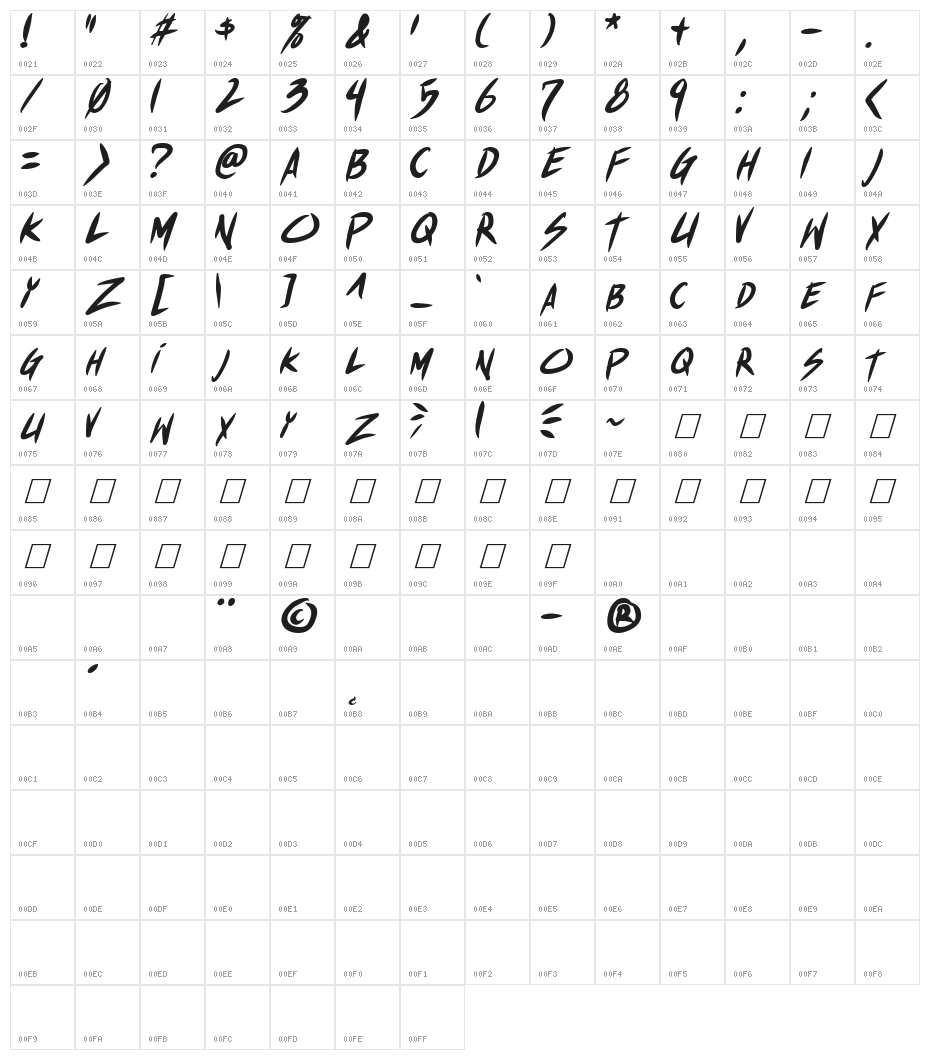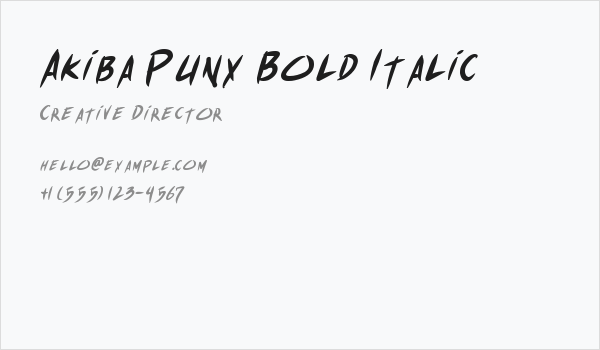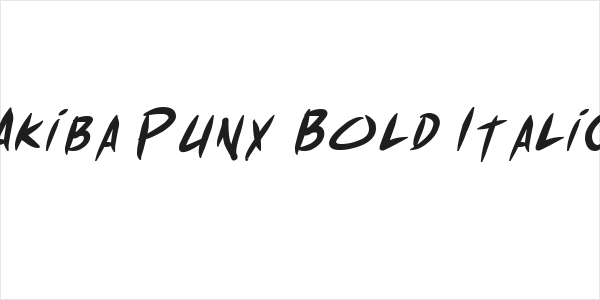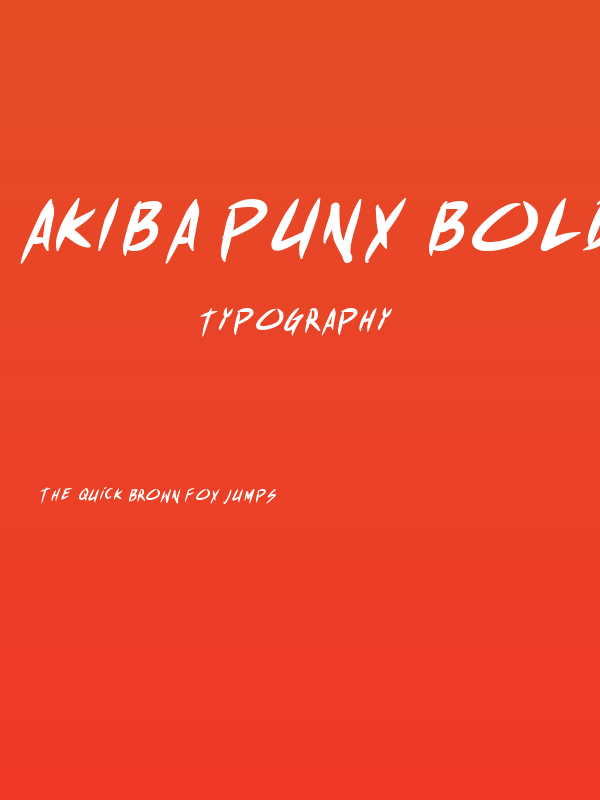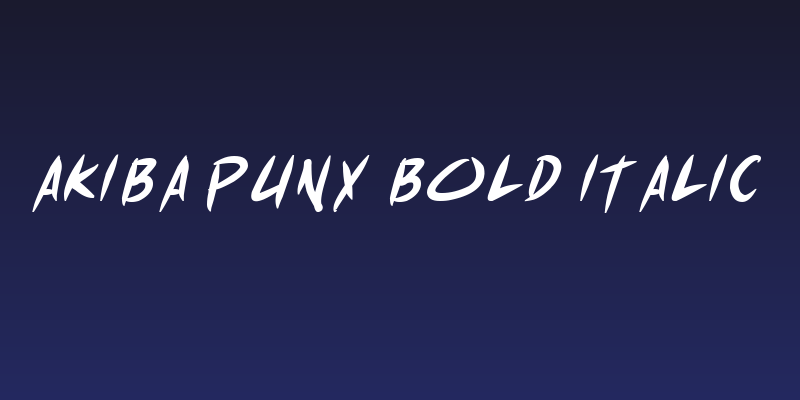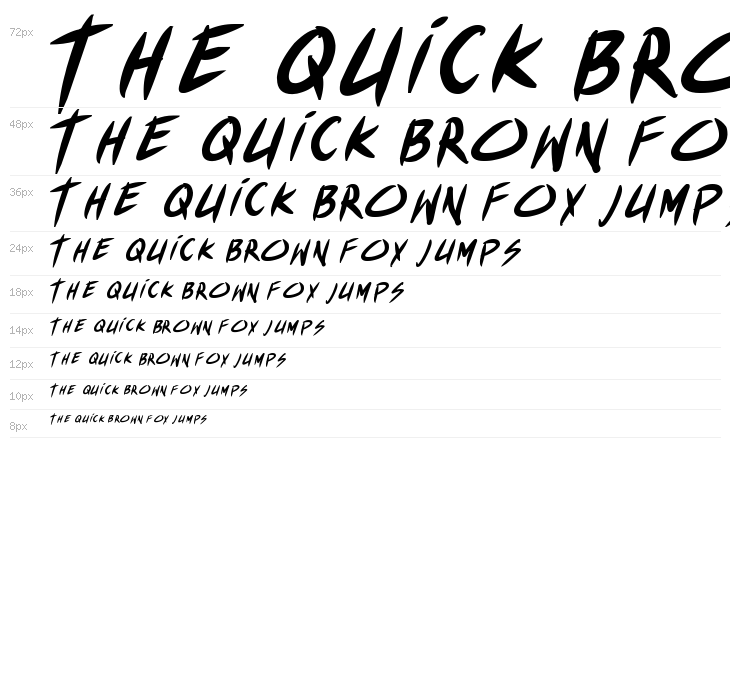
Akiba Punx Bold Italic Font
Akiba Punx Bold Italic Description
This bold and italic typeface exudes a dynamic and energetic vibe, characterized by its sharp, angular strokes and slightly slanted orientation. The letters are bold, with a strong presence that commands attention. The uppercase and lowercase characters maintain a consistent style, with a playful yet edgy appearance. The numbers and special characters follow the same design ethos, ensuring uniformity across all glyphs. This font is perfect for projects that require a bold statement, combining modern aesthetics with a rebellious flair.
| Overall Style | Modern, Edgy |
| Proposed Projects | Ideal for music album covers, streetwear branding, event posters, and edgy editorial designs. |